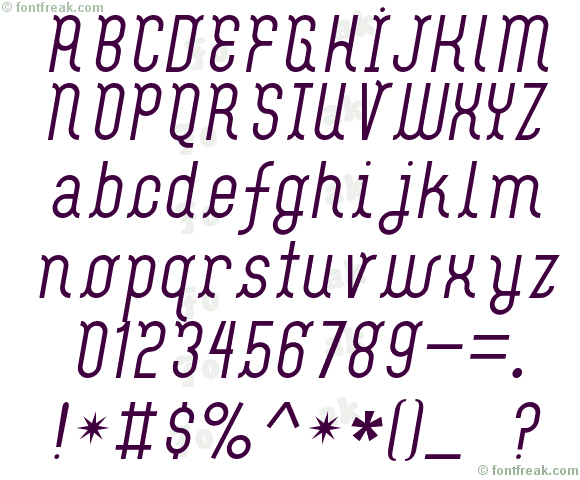
FlashBoy
FlashBoy, designed by Pizzadude, is a captivating display font that combines a playful aesthetic with a modern flair. As a decorative typeface, it features unique letterforms that draw attention, making it an excellent choice for projects requiring a vibrant and energetic touch. The font showcases a medium stroke weight with subtle contrasts, delivering a sense of dynamism while maintaining readability. The spacing between characters is well-balanced, allowing for seamless integration into various design contexts.
Ideal use cases for the FlashBoy font include eye-catching movie posters, lively event flyers, trendy restaurant menus, and engaging social media graphics. Its whimsical style is particularly suited for projects targeting younger audiences or those looking to convey a sense of fun and creativity. Graphic designers and content creators will find this font to be a versatile tool for enhancing their work, while small business owners can leverage its distinctive look to elevate branding materials and promotional items.
FlashBoy stands out not only for its unique design elements but also for its versatility across different applications. The font’s playful character and modern appearance make it a fantastic addition to any designer’s toolkit. With its freeware license, users can enjoy the FlashBoy font free download, allowing for experimentation without financial commitment. Whether you're crafting a vibrant brand identity or designing an engaging advertisement, FlashBoy offers a fresh perspective that captures attention and sparks interest. Its distinctive charm and adaptability ensure that it will make a lasting impression in any creative project.